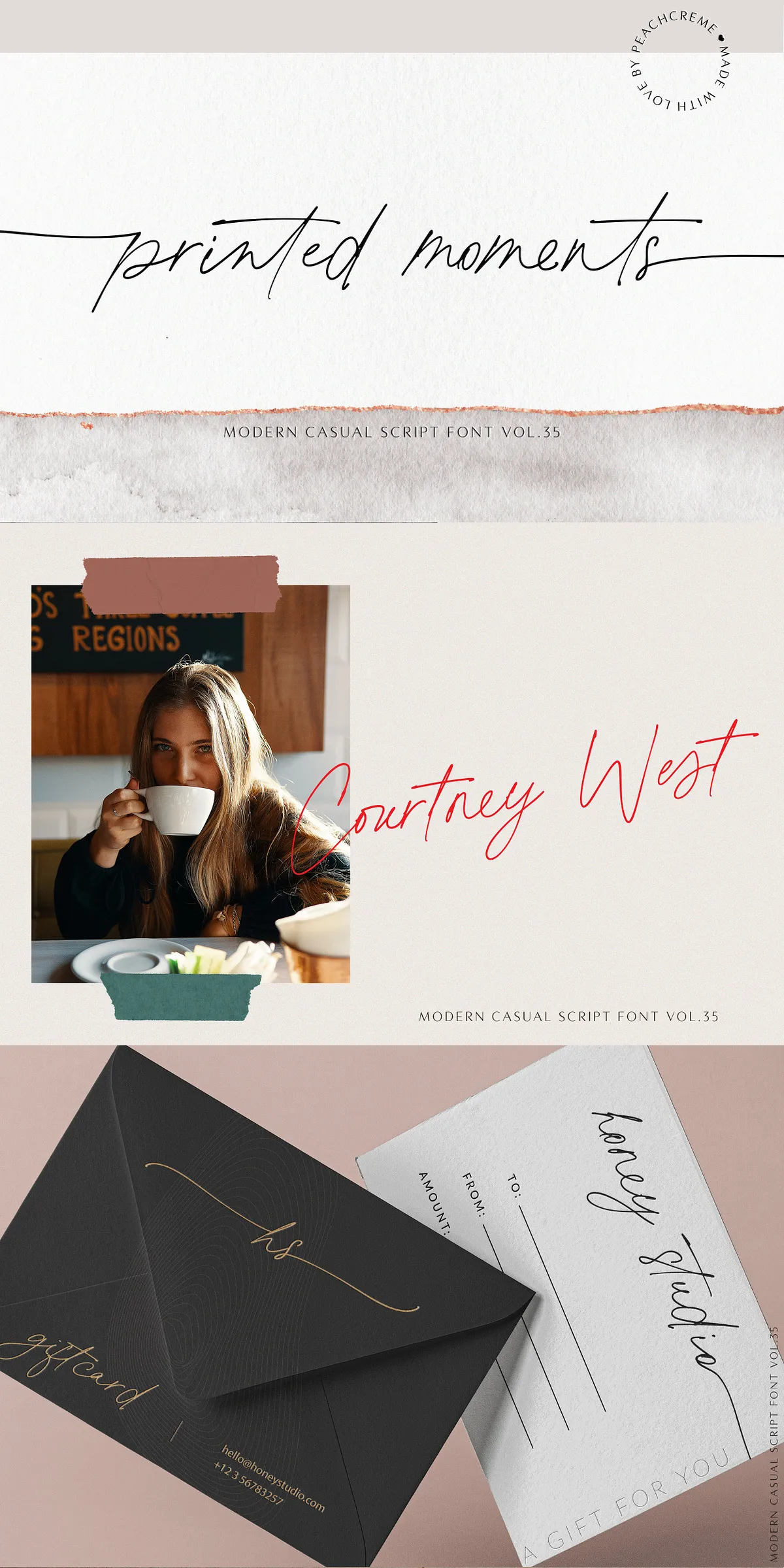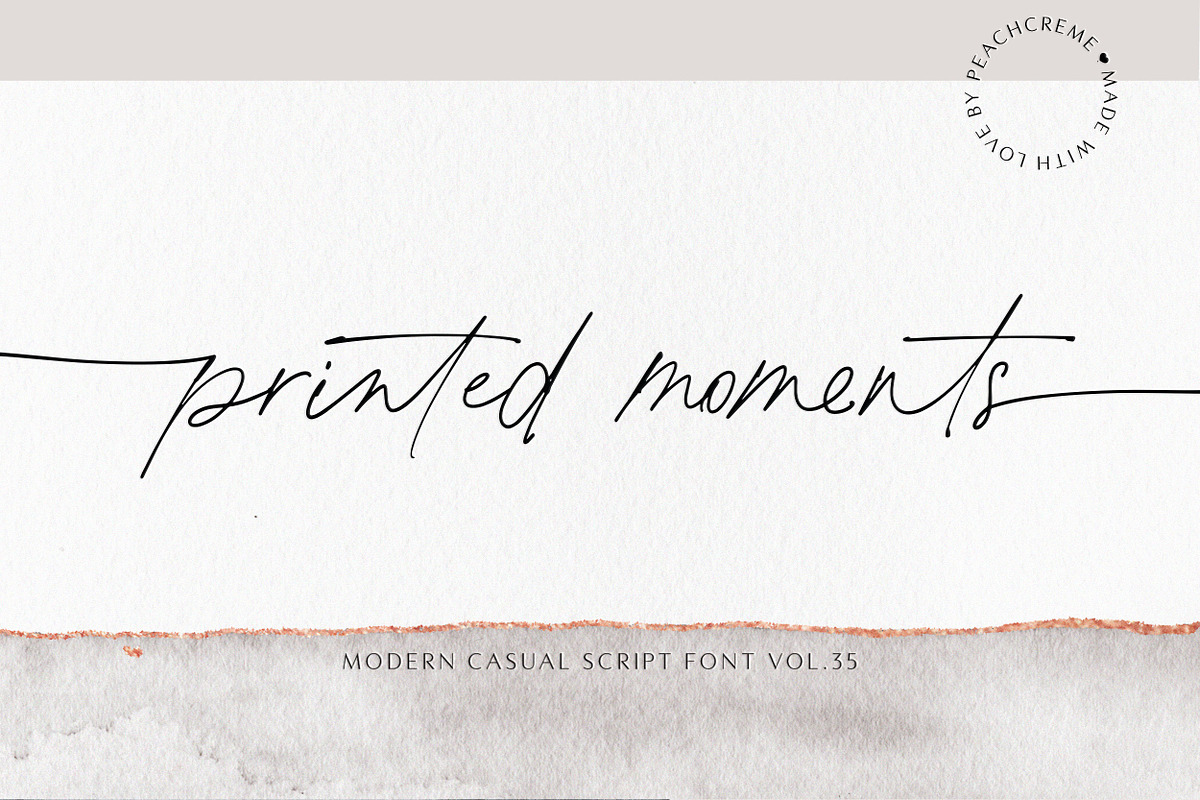
Step into the world of effortlessly chic typography with Printed Moments – a modern casual script font that blends the warm, handwritten feel of a ball pen with the clean precision of digital excellence. This isn’t just a font; it’s the visual language of thoughtful design, crafted for creators who value both authenticity and polish. Whether you’re launching a brand, designing wedding stationery, or crafting a social media post that stops the scroll, Printed Moments delivers instant style with a refined, understated edge.
The Art of Smooth, Handcrafted Texture
What sets Printed Moments apart is its distinctive smooth ball pen texture – a meticulously rendered finish that captures the subtle strokes, slight pressure variations, and natural flow of ink on paper. This isn’t a cold, mechanical typeface. It’s alive with character. Each letterform feels like it was written in real time, giving your project a personal, tactile quality that digital fonts often fail to achieve.
- Realistic Ball Pen Quality: Every stroke mimics the soft, fluid movement of a premium ballpoint pen.
- Beginning & Ending Ligatures: Smartly designed ligatures create natural entry and exit points for a seamless, connected flow.
- Subtle Imperfections: Intentional texture adds authenticity without distracting from legibility.
This level of detail ensures your text never looks artificial. It breathes, it moves, it feels genuine — just like the moments it’s meant to capture.
Comprehensive Typography with 134+ Ligatures
Printed Moments is built for professional-grade design, offering a full set of typographic features that elevate your work from good to exceptional.
- Complete Character Set: Full uppercase and lowercase letters, numerals, punctuation marks, and multilingual symbols for global use.
- 134+ Hand-Crafted Ligatures: These intelligent combinations ensure fluid transitions between letters, especially in flowing text like quotes, headings, and names.
- Contextual Alternates: Automatically replace characters based on their position and neighbors, maintaining visual harmony.
- PUA Encoded Glyphs: All decorative swashes and stylistic variants are instantly accessible via standard keyboard shortcuts.
With every feature designed to make your workflow smoother and your output richer, Printed Moments gives you creative control without the technical overhead.
Designed for Real-World Creative Workflow
Perfect Projects for Printed Moments
Why use a font that feels like a whisper when you can use one that commands attention with grace? Here’s where Printed Moments shines:
- Branding & Logos: Create memorable visual identities that feel modern, warm, and deeply human.
- Wedding Invitations & Stationery: Add a delicate, elegant touch to formal events with a personal, curated vibe.
- Product Packaging & Labels: Give cosmetics, food items, and handmade goods a premium, artisanal feel.
- Social Media Graphics: Craft posts that feel authentic and engaging — perfect for Instagram, Pinterest, and TikTok.
- Blog Headers & Quotes: Elevate your content with expressive, readable typography that enhances storytelling.
- Marketing & Advertising: Use it in banners, flyers, and email newsletters to create warmth and connection.
Pairing Power: When Printed Moments Meets Its Match
To maximize its beauty, pair Printed Moments with complementary fonts that provide contrast and balance:
- Montserrat – clean, modern sans-serif for strong visual hierarchy.
- Poppins – friendly and geometric, ideal for digital interfaces.